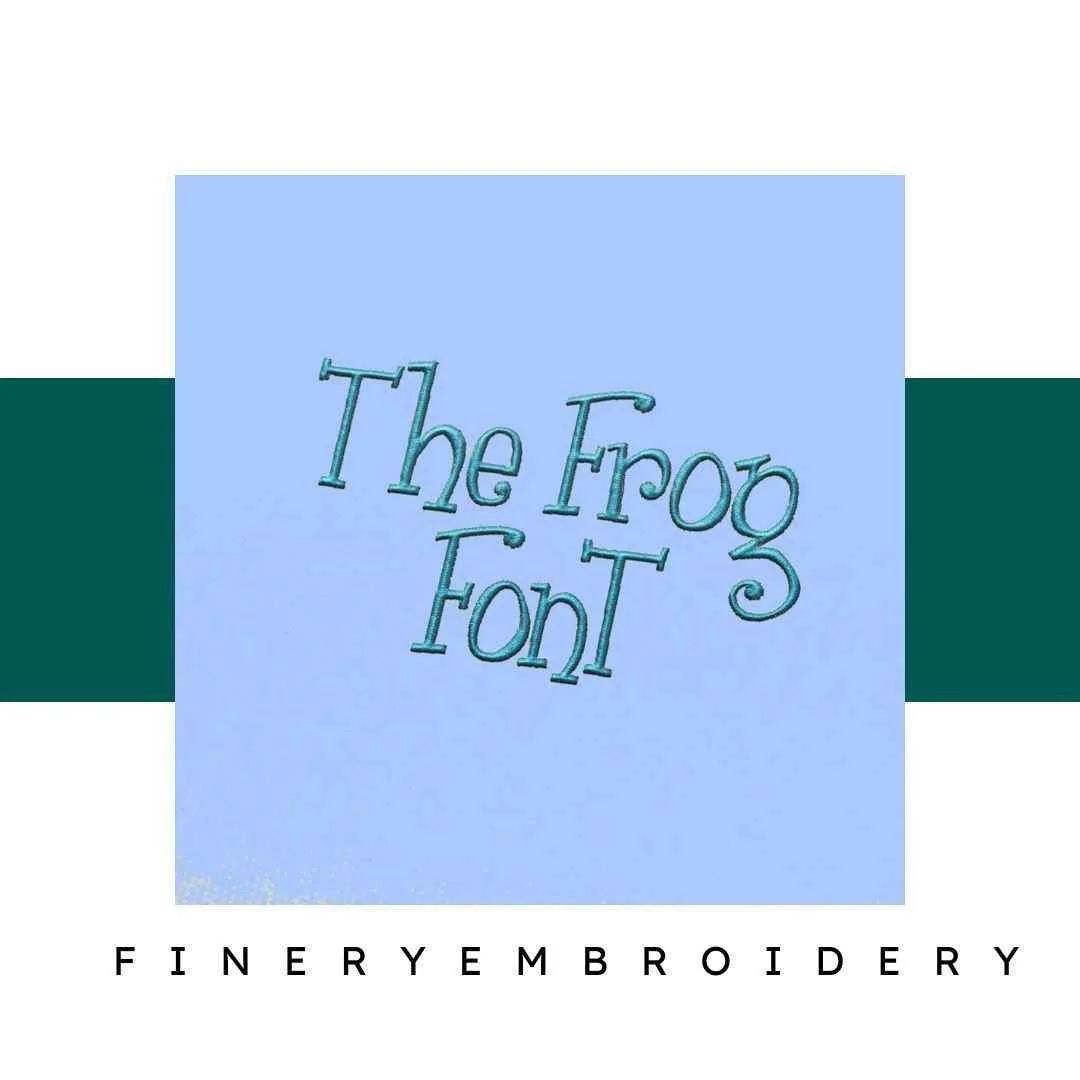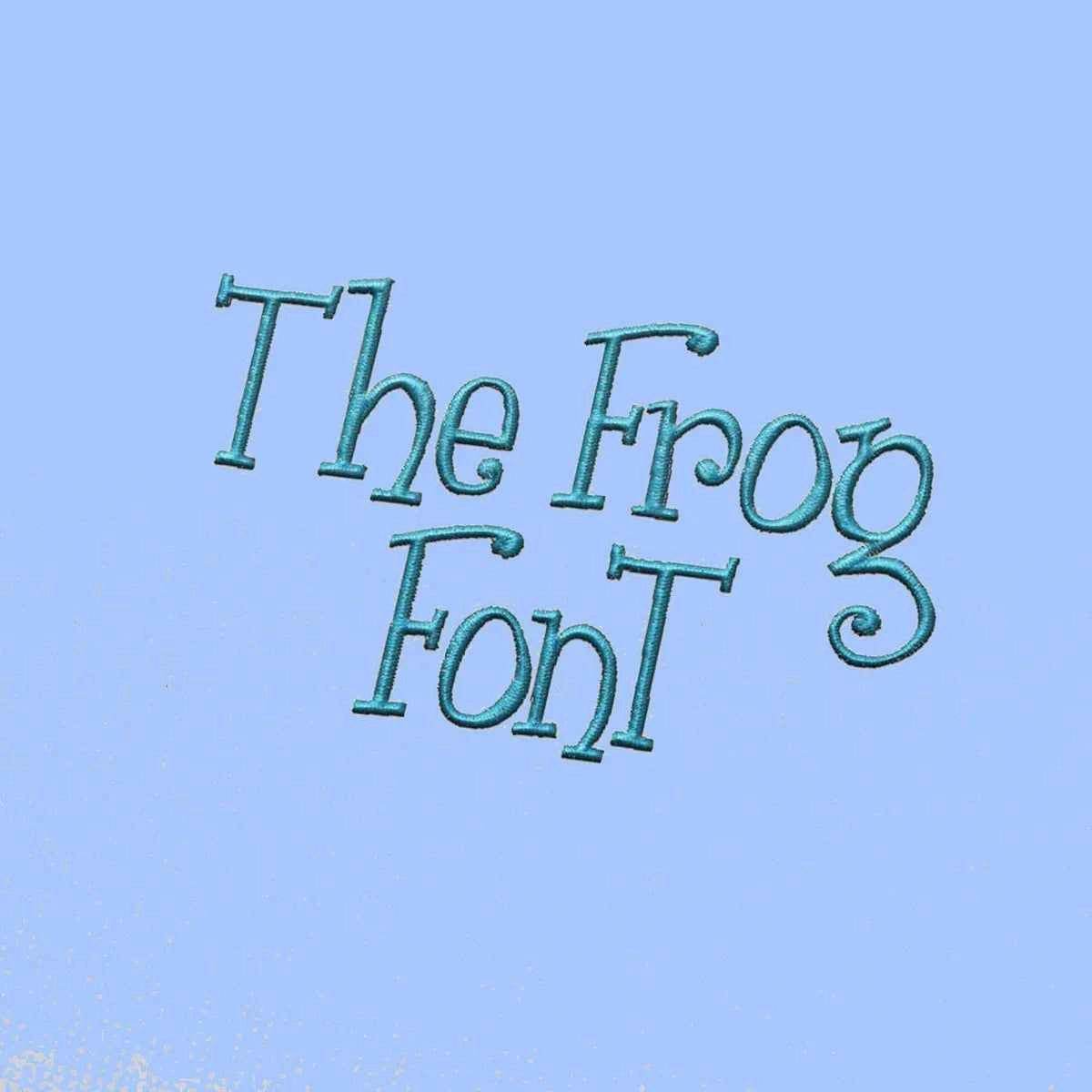
The frog Embroidery alphabet Font Set
Unleash your creativity with the enchanting Frog Embroidery Alphabet Font Set, where elegance meets high-quality craftsmanship!
Introducing the Frog Embroidery Alphabet Font Set, a captivating collection that brings a unique charm to your embroidery projects. This font set is designed for those who wish to infuse their creations with sophistication and style. Whether you're personalizing gifts, embellishing garments, or enhancing accessories, this exquisite set is perfect for every embroidery enthusiast.
Why You'll Love This Design
Each letter in the Frog Embroidery Alphabet Font Set is intricately crafted, showcasing exquisite detail and elegance. This design is not just about letters; it’s about expressing personality and creativity through your embroidery. With its unique characters, your projects will stand out in any setting, making it an essential addition to your digital embroidery library.
Creative Applications
Imagine the possibilities with this versatile font set! Use it to personalize baby blankets, create customized tote bags, or add a special touch to your home decor. The Frog Embroidery Alphabet Font Set empowers you to experiment and play with your designs, allowing your imagination to flourish while ensuring that each piece is uniquely yours.
Digitized for Passionate Embroiderers